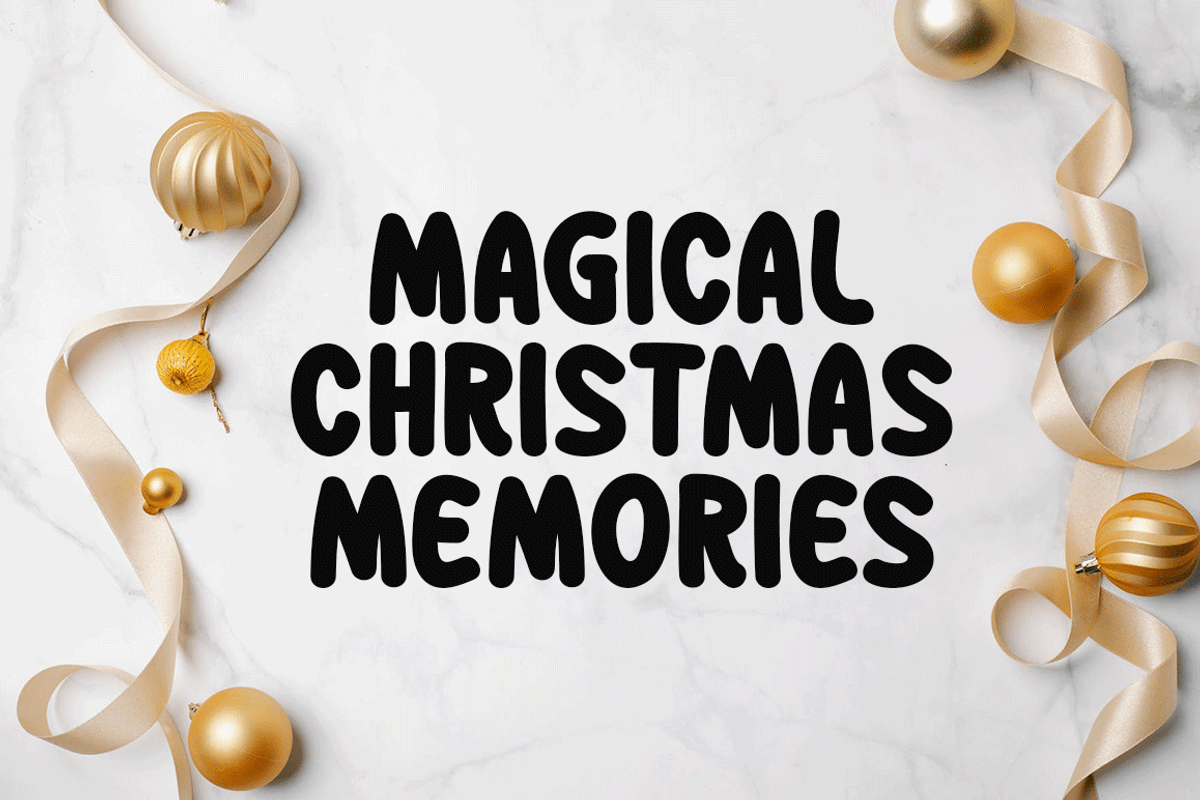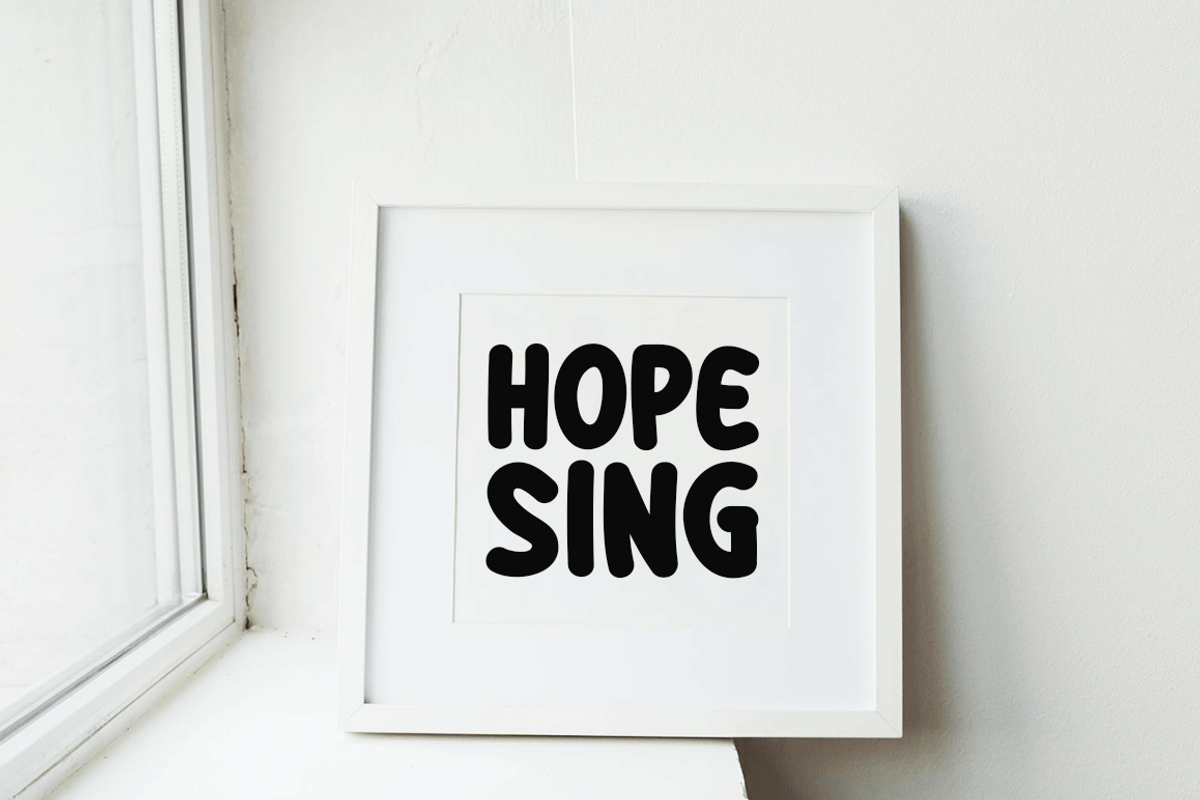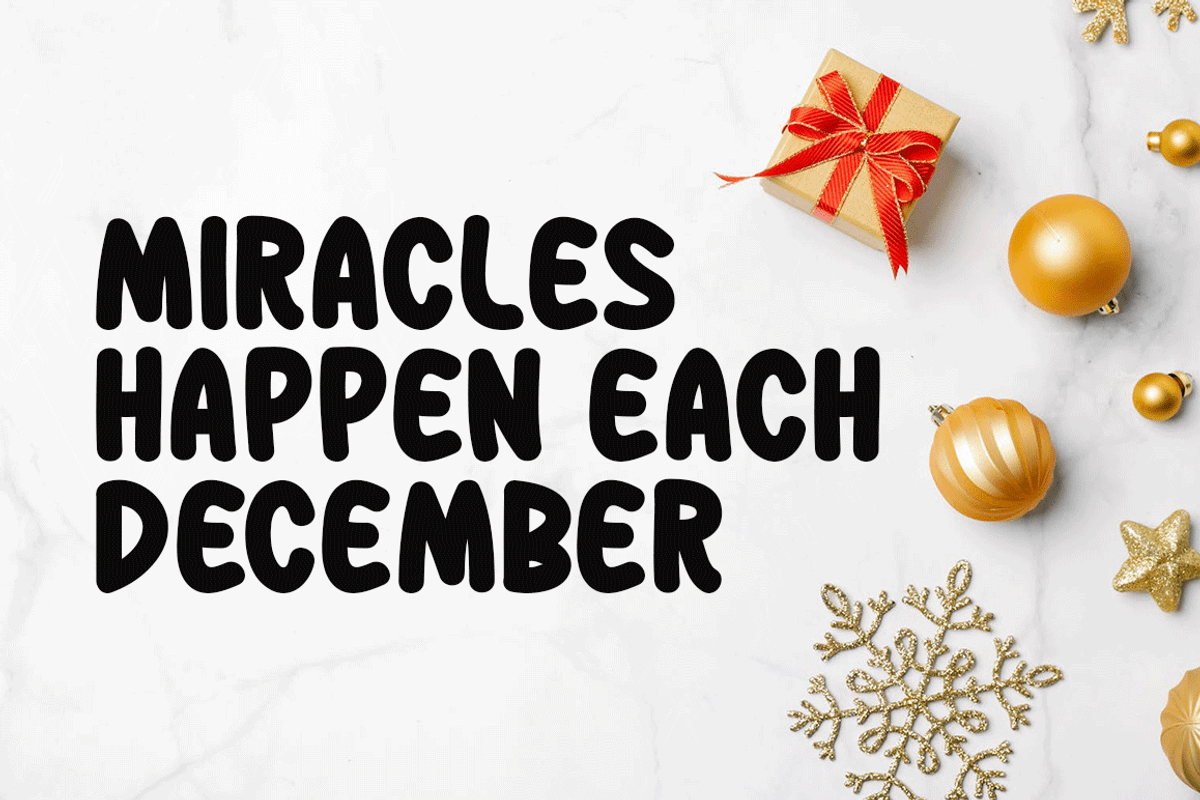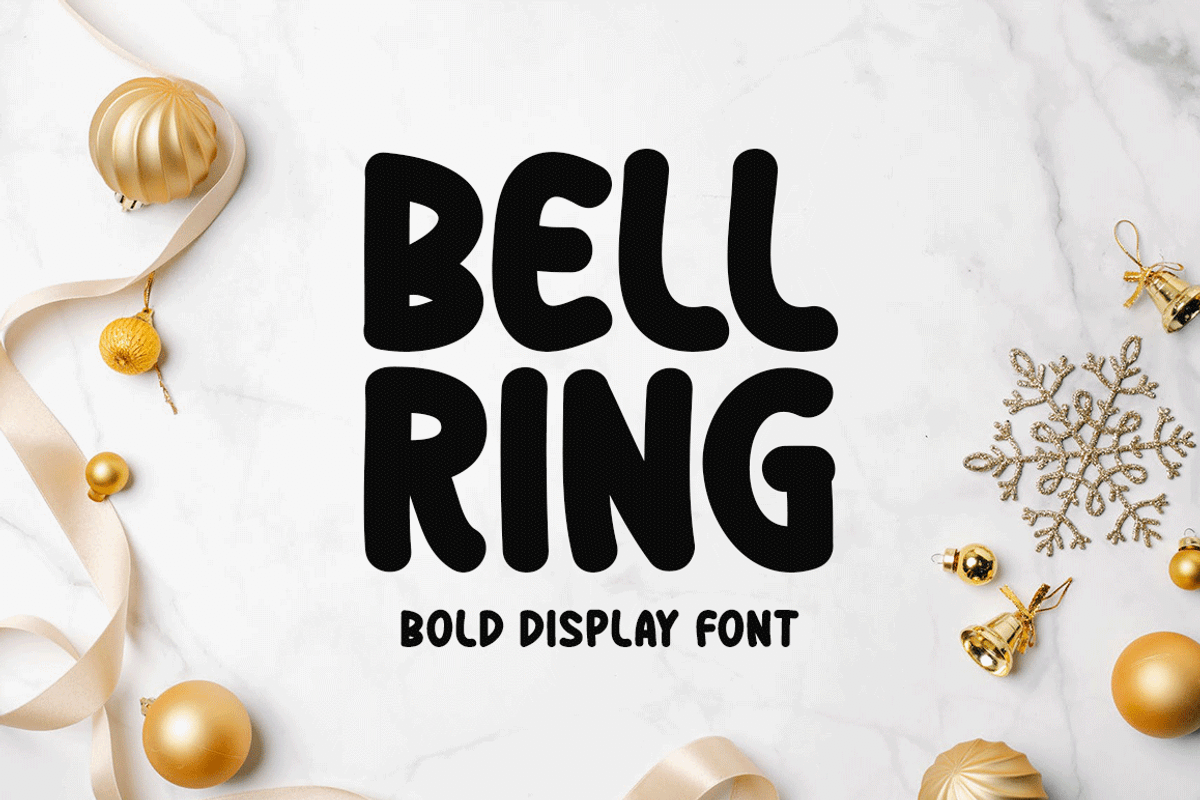
Bell Ring Typeface
Introducing Bell Ring!
Warmth and friendliness are at the heart of Bell Ring, a handwritten font that captures the essence of the season. Its distinct charm makes it an ideal choice for a wide spectrum of design projects, where your creativity knows no bounds.
Includes a range of multilingual support